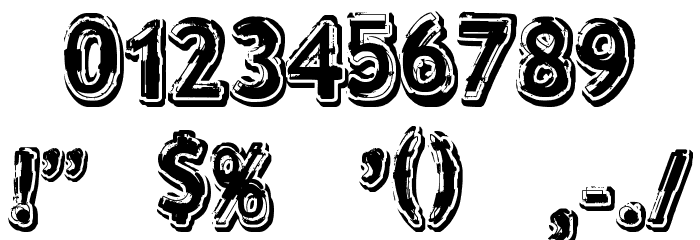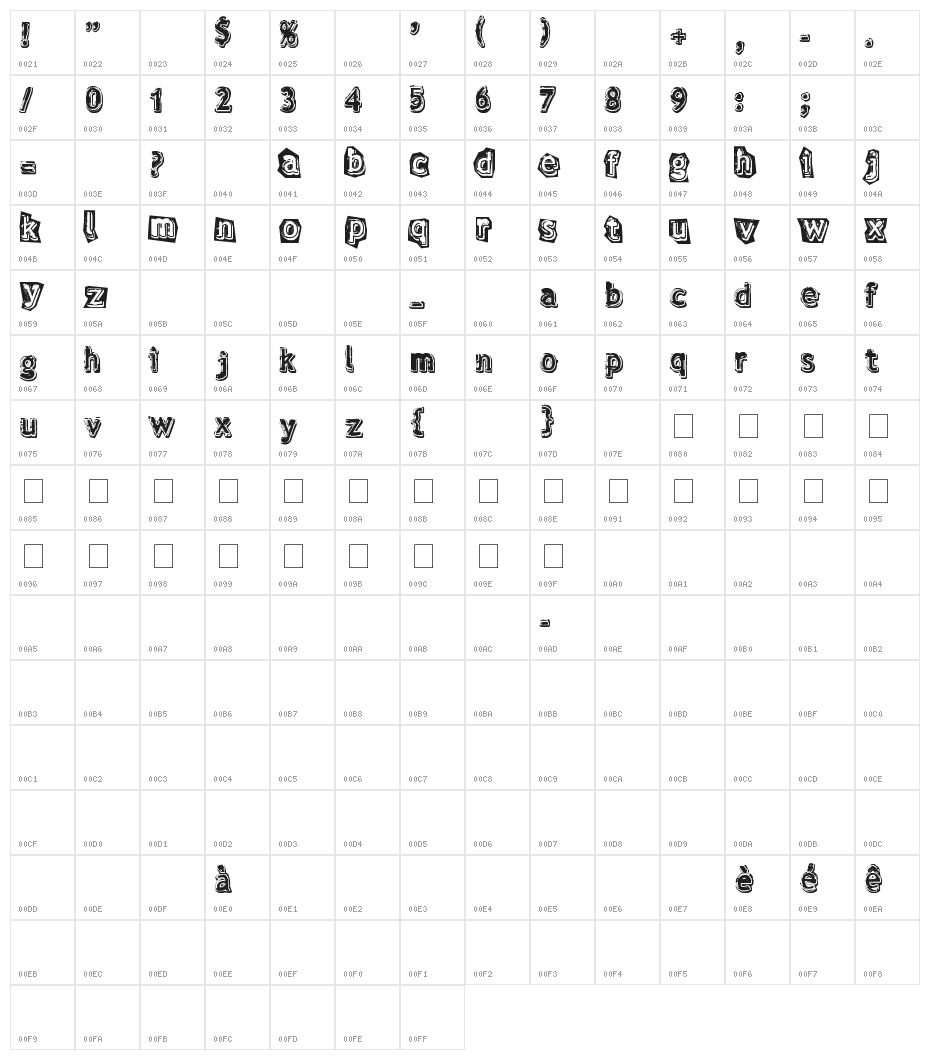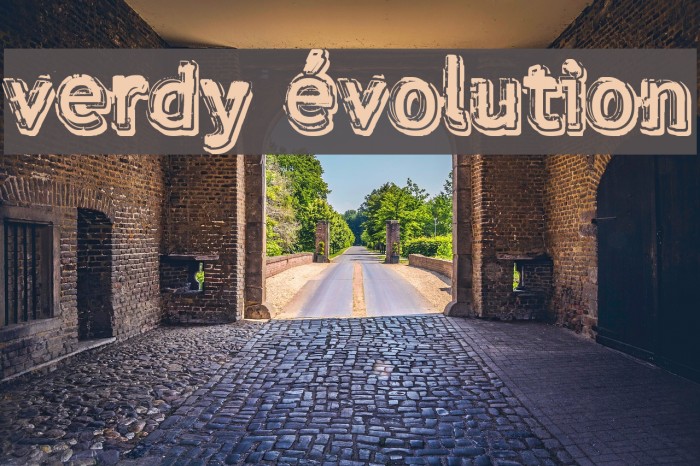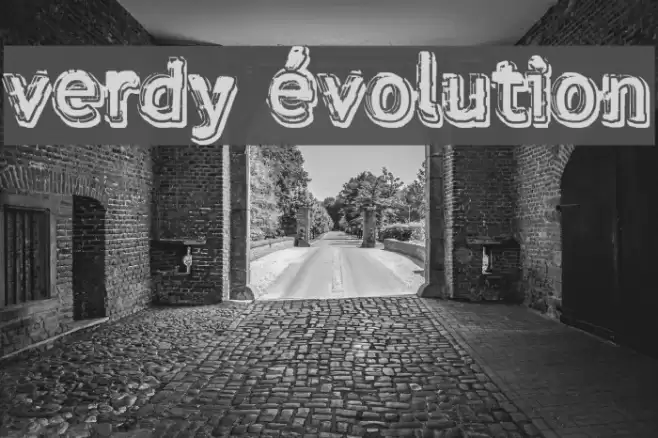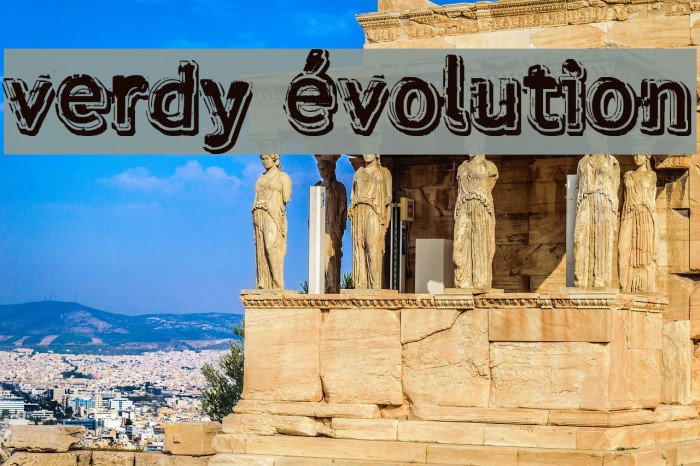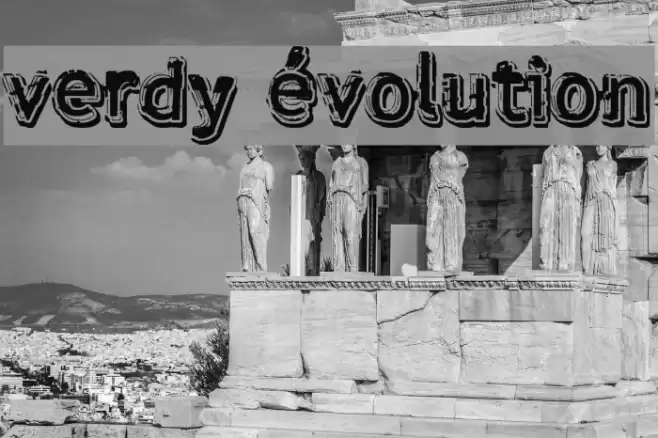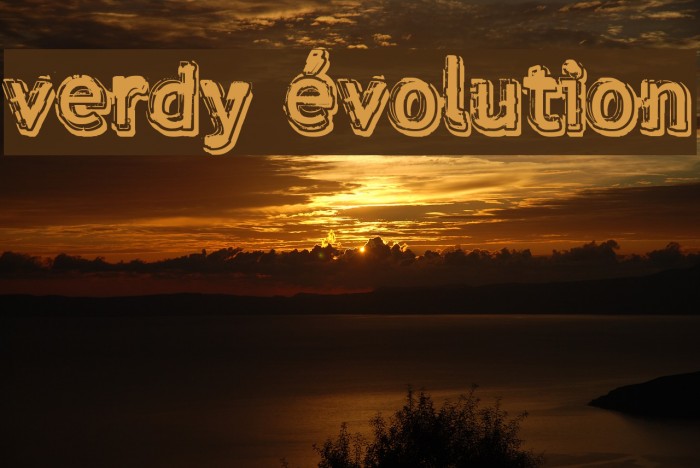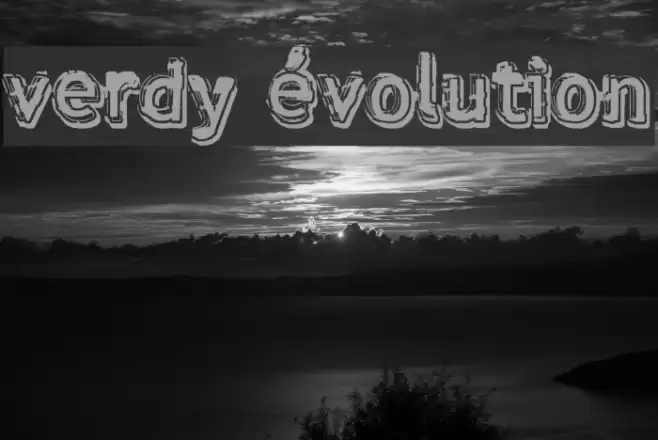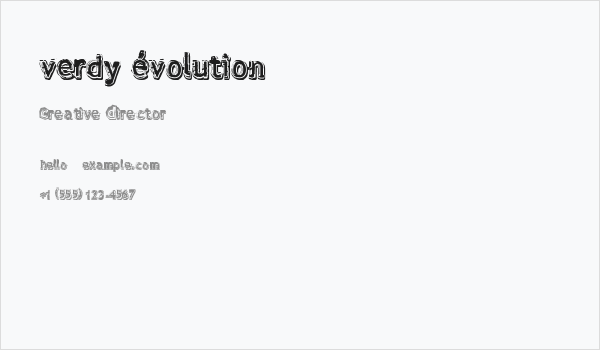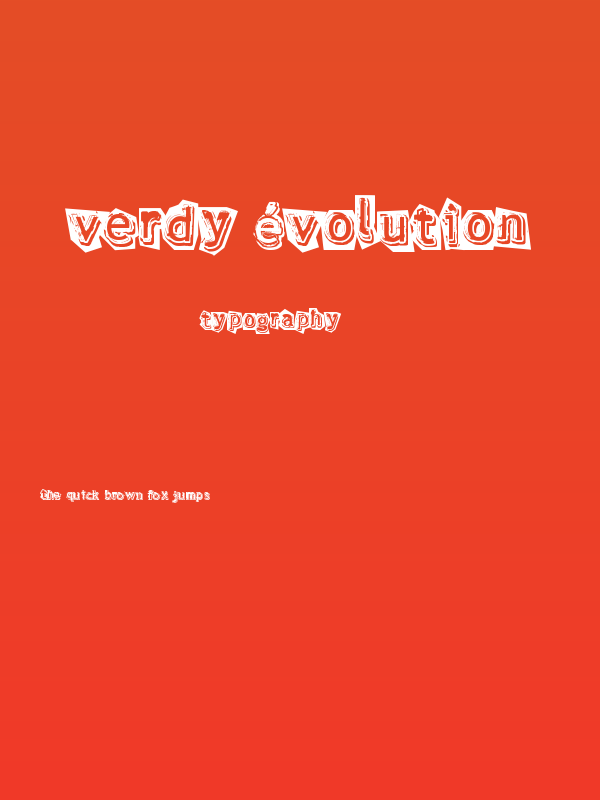
verdy évolution Font
verdy évolution Description
This font features a bold, playful style with a three-dimensional effect created by its shadowed outline. The letters are uppercase and lowercase, with a slightly irregular, hand-drawn appearance that adds a sense of movement and energy. The numbers and special characters follow the same design, ensuring consistency across all elements. The font's unique style makes it stand out, with a rough texture that gives it a grungy, urban feel. It's perfect for projects that require a bold statement or a creative, artistic touch.
| Overall Style | Modern, Grunge |
| Proposed Projects | Ideal for posters, album covers, streetwear branding, or any creative project needing a bold, artistic flair. |